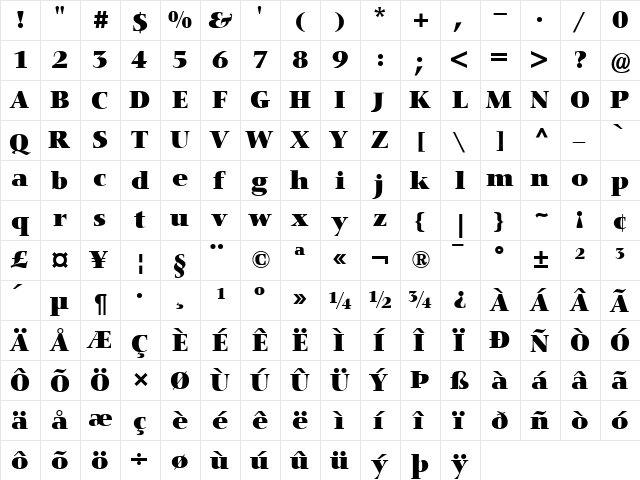
Nofret Regular
Design Context for Nofret Typeface
Nofret is a composed and adaptable typeface that performs quietly and consistently across a wide range of design contexts.